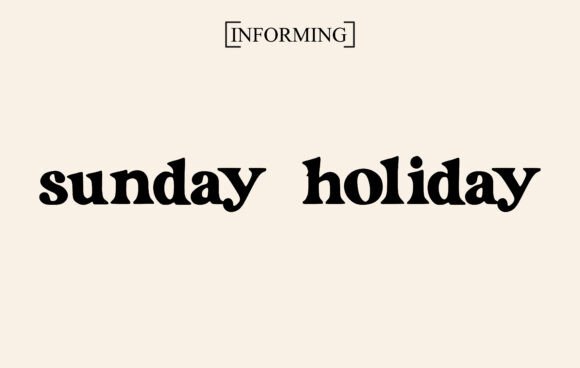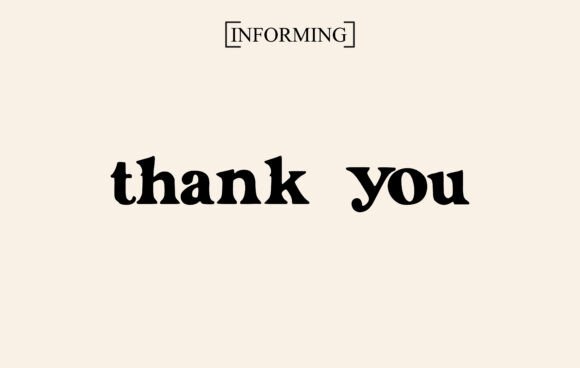
Introducing Harmony Script Font: A Perfect Blend of Nostalgia and Modernity
In the world of typography, fonts play a crucial role in conveying messages, evoking emotions, and creating a lasting impression. For designers, crafters, and brands looking to make a statement, Harmony Script Font is an excellent choice. This bold and confident font boasts soft curves and retro roots, making it a unique addition to any design project. In this article, we’ll explore the features, benefits, and uses of Harmony Script Font, and why it’s perfect for branding, quotes, headlines, and merchandise.
What is Harmony Script Font?
Harmony Script Font is a statement serif font that seamlessly blends nostalgic design with contemporary vibes. Its bold and confident personality makes it an ideal choice for designers and brands looking to create a lasting impression. The font features soft curves, which give it a friendly and approachable feel, while its retro roots add a touch of vintage charm.
Key Features of Harmony Script Font
- Bold and Confident: Harmony Script Font exudes confidence and boldness, making it perfect for headlines, titles, and statements.
- Soft Curves: The font’s soft curves give it a friendly and approachable feel, making it suitable for designs that require a touch of warmth and personality.
- Retro Roots: Harmony Script Font’s retro roots add a touch of vintage charm, making it perfect for designs that require a nostalgic feel.
- Statement Serif: The font’s serif design makes it a statement font, perfect for headlines, titles, and emphasis.
Benefits of Using Harmony Script Font
Harmony Script Font offers several benefits for designers, crafters, and brands. Some of the key benefits include:
- Unique and Memorable: The font’s unique blend of nostalgia and modernity makes it memorable and distinctive.
- Versatile: Harmony Script Font is versatile and can be used for a wide range of design projects, from branding and advertising to merchandise and packaging.
- Easy to Read: The font’s clear and legible design makes it easy to read, even at smaller sizes.
- Customizable: Harmony Script Font can be customized to fit your brand’s style and personality, making it a great choice for branding and marketing projects.
Uses of Harmony Script Font
Harmony Script Font is perfect for a wide range of design projects, including:
- Branding: Use Harmony Script Font to create a unique and memorable brand identity that stands out from the crowd.
- Quotes and Headlines: The font’s bold and confident personality makes it perfect for quotes and headlines that require emphasis and attention.
- Merchandise: Harmony Script Font is a great choice for merchandise, such as t-shirts, mugs, and posters, where a bold and eye-catching font is required.
- Advertising: Use Harmony Script Font to create eye-catching and memorable ads that grab attention and leave a lasting impression.
Tips for Using Harmony Script Font
Here are some tips for using Harmony Script Font effectively:
- Use it Boldly: Harmony Script Font is a bold and confident font, so use it boldly to make a statement.
- Experiment with Colors: The font’s retro roots and soft curves make it perfect for experimenting with different colors and textures.
- Pair it with Other Fonts: Harmony Script Font can be paired with other fonts to create a unique and memorable typography combination.
- Keep it Simple: Don’t overcomplicate your design – keep it simple and let Harmony Script Font do the talking.
Harmony Script Font is a unique and memorable font that blends nostalgia and modernity. Its bold and confident personality, soft curves, and retro roots make it perfect for branding, quotes, headlines, and merchandise. With its versatility, ease of use, and customizability, Harmony Script Font is a great choice for designers, crafters, and brands looking to make a statement. So why not give it a try and see how it can elevate your design projects?